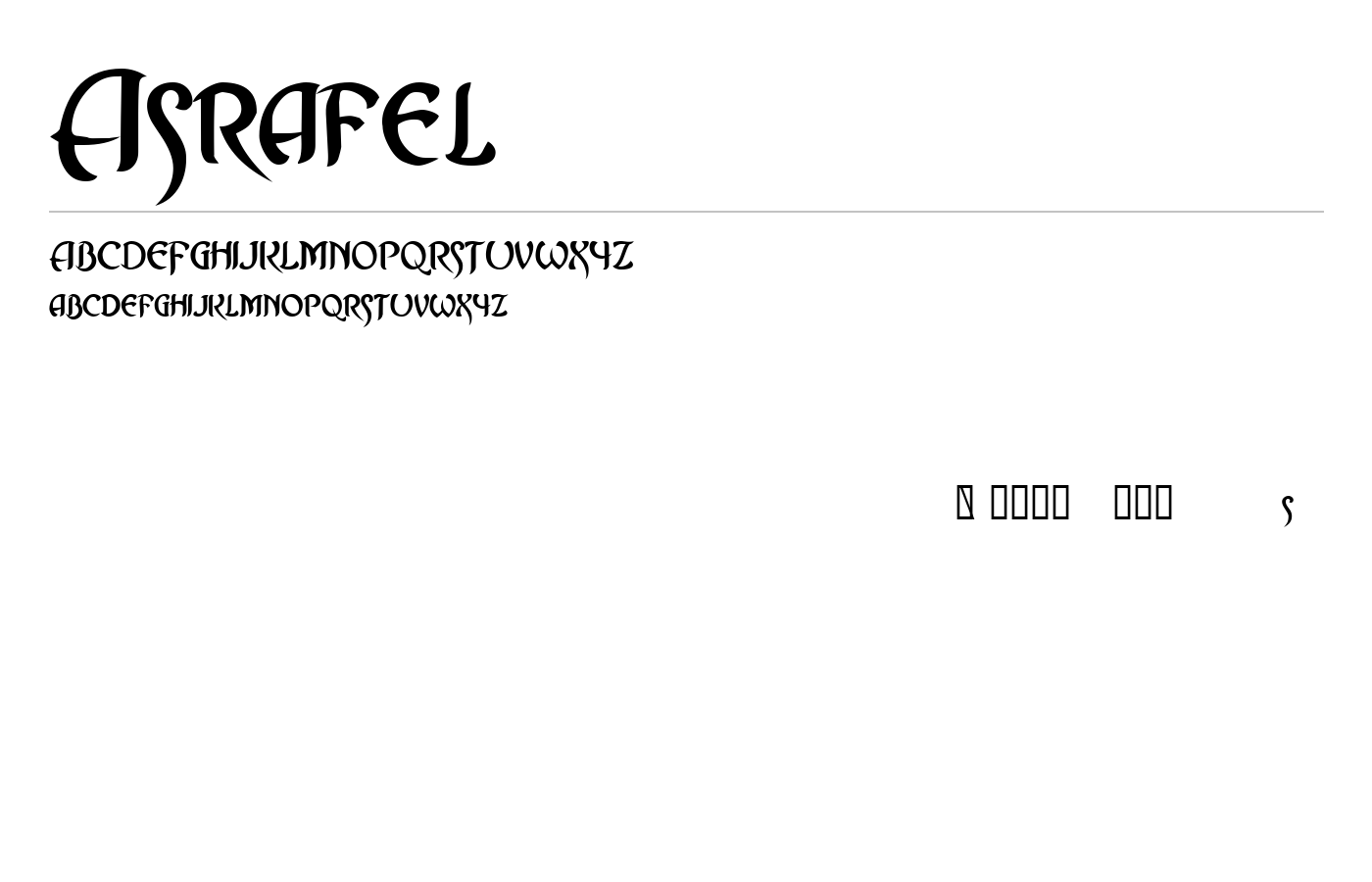
Asrafel is a decorative serif font characterized by its stylized, calligraphic letterforms with sharp, angular strokes and a somewhat medieval or fantasy-inspired vibe. It features a moderately condensed width, moderate contrast between thick and thin strokes, and distinctive, artistic shapes that make it ideal for eye-catching headlines or thematic branding. This font works best in projects that seek a mysterious, elegant, or historical feel, such as book covers, fantasy logos, or event invitations.
Asrafel Font
About Asrafel Font